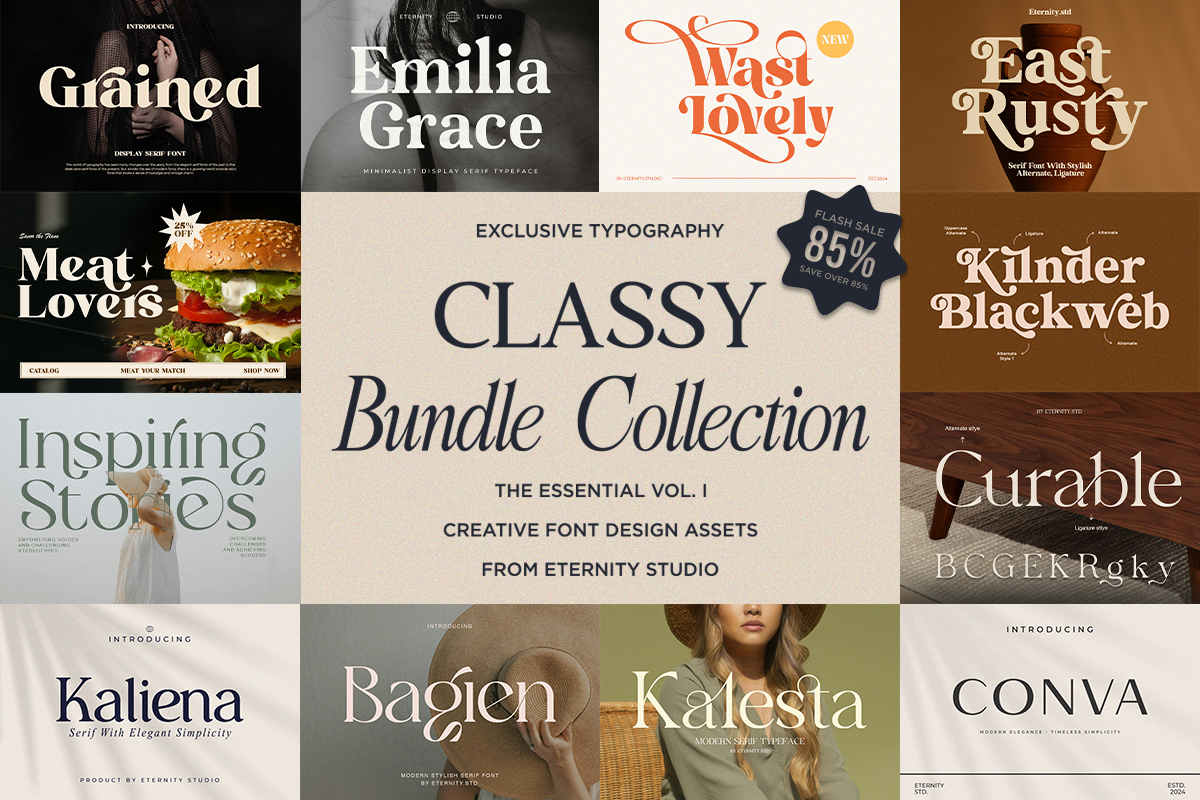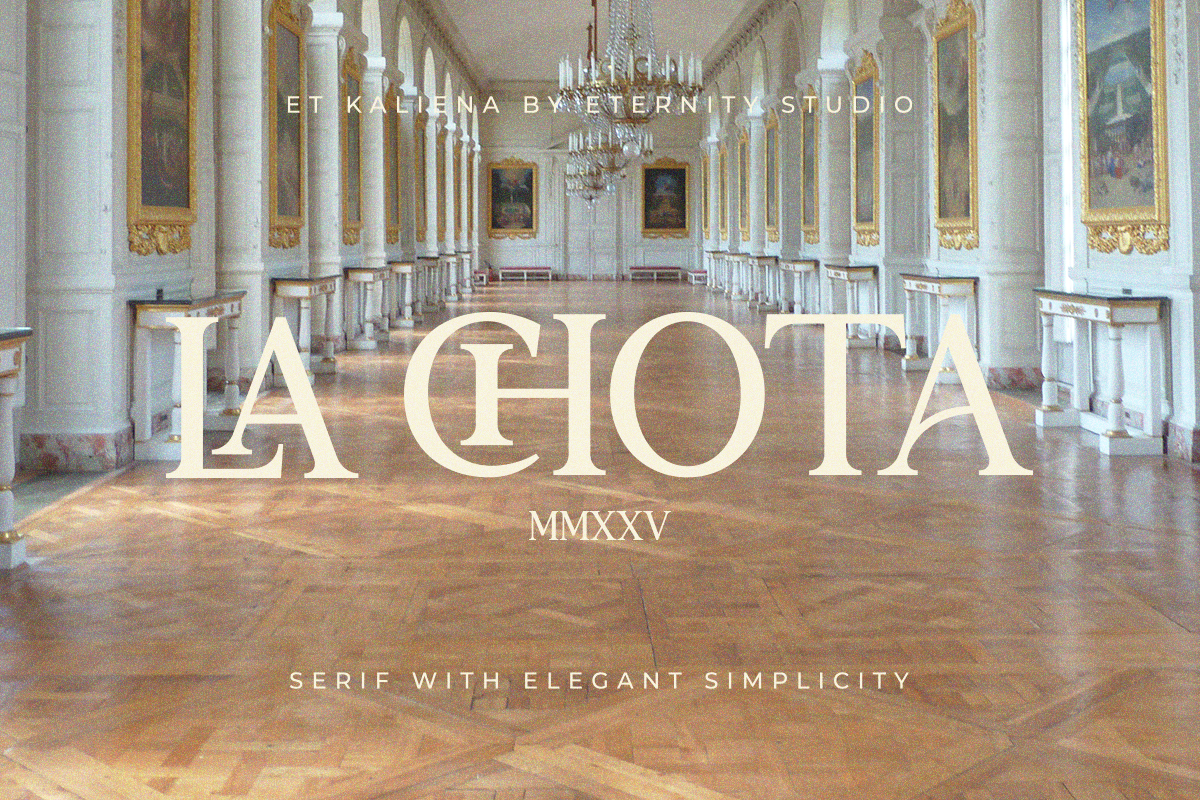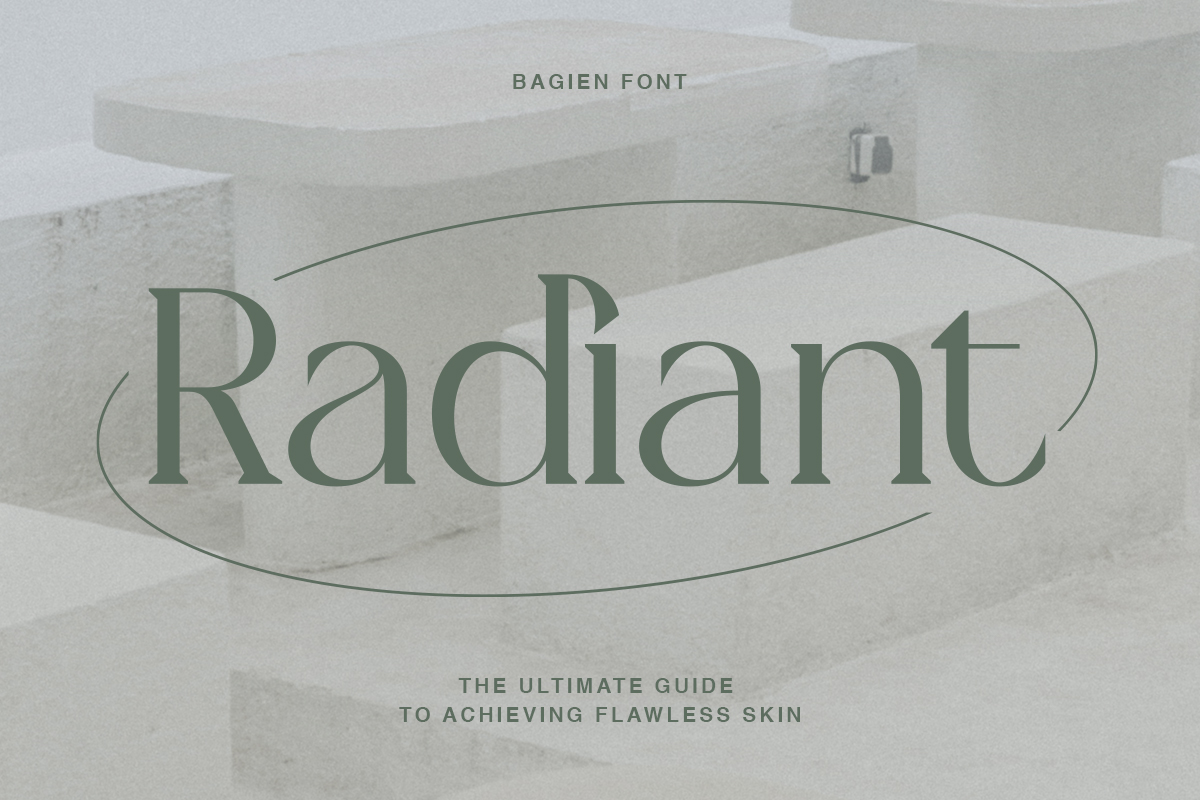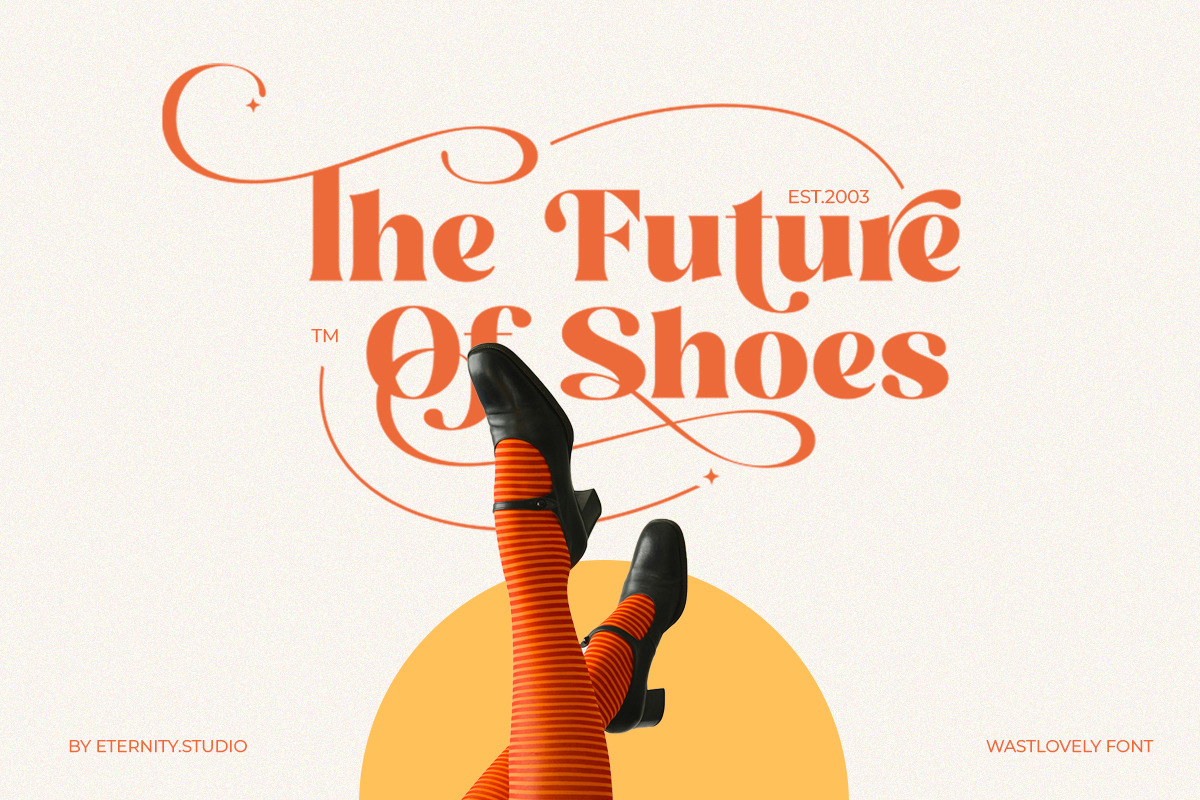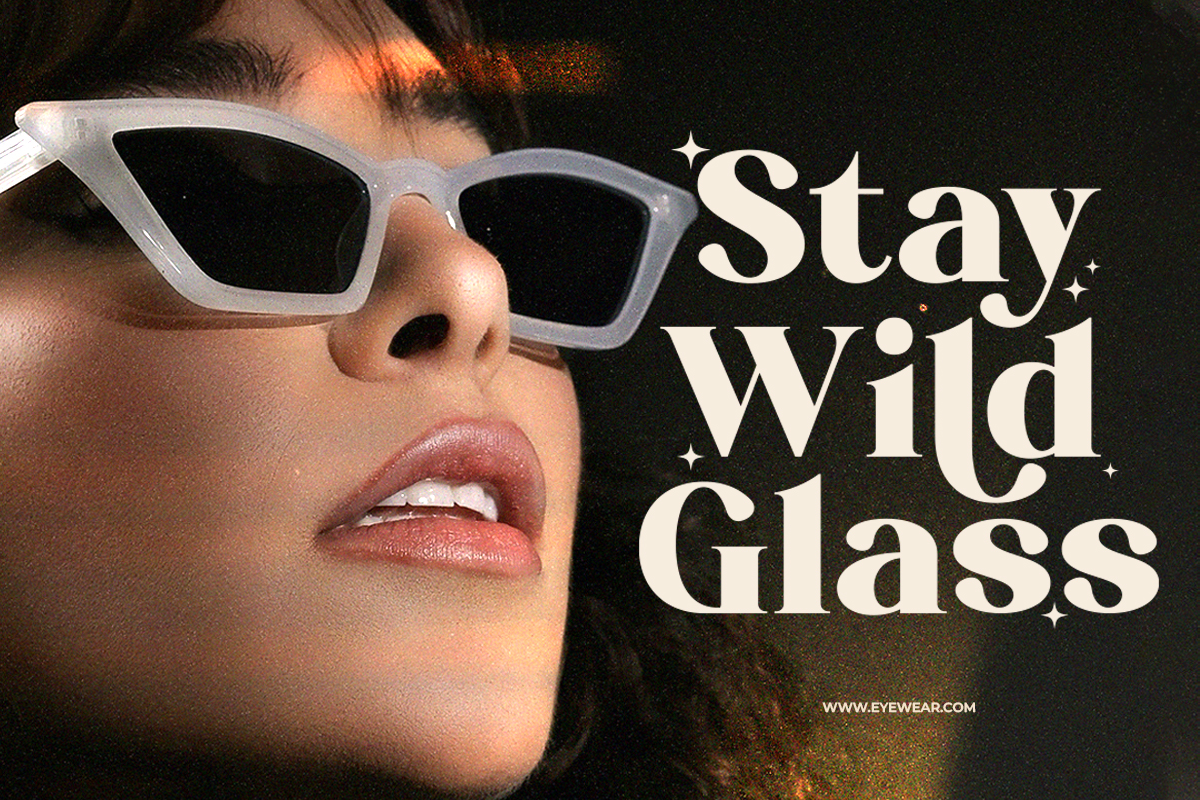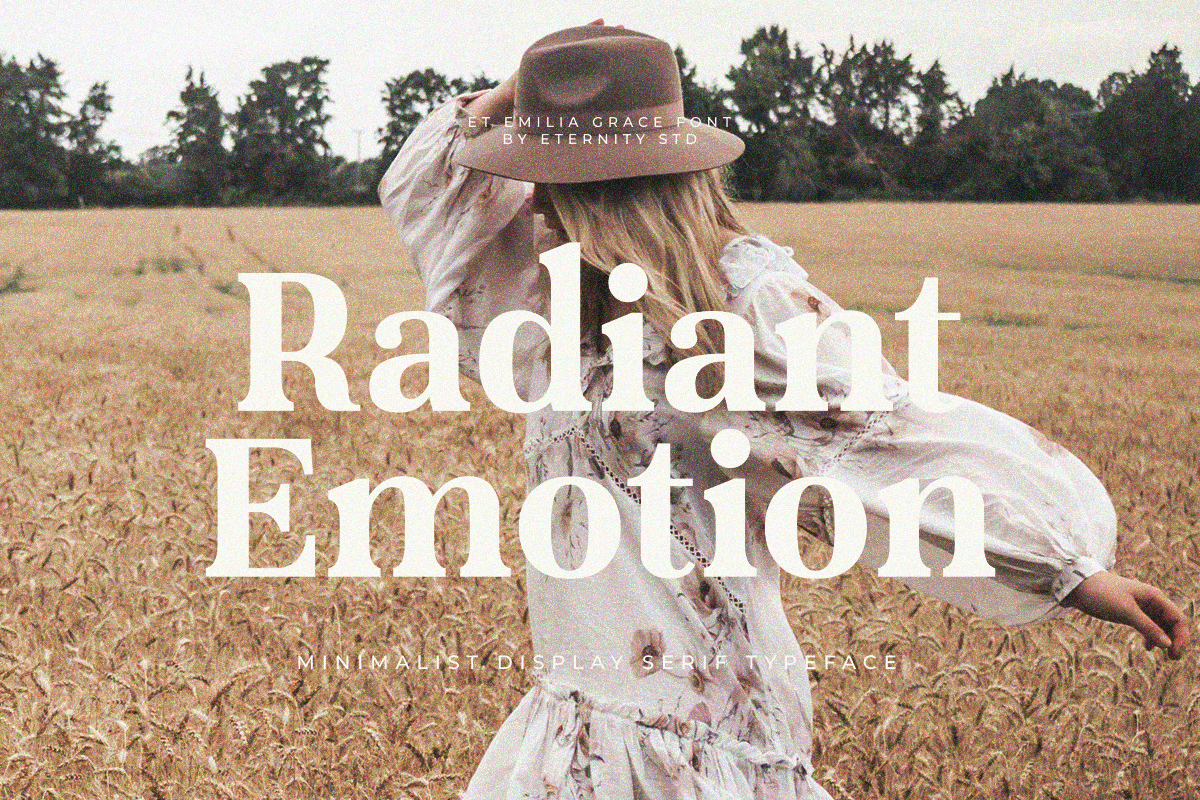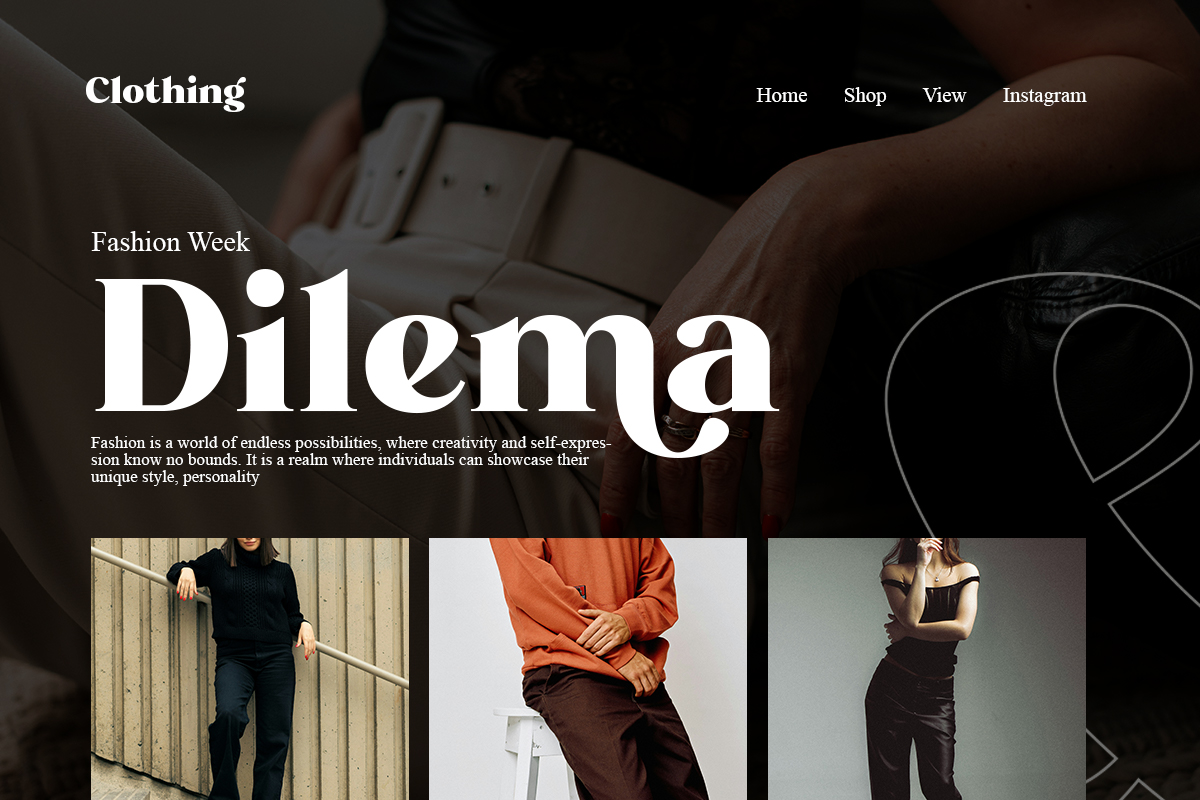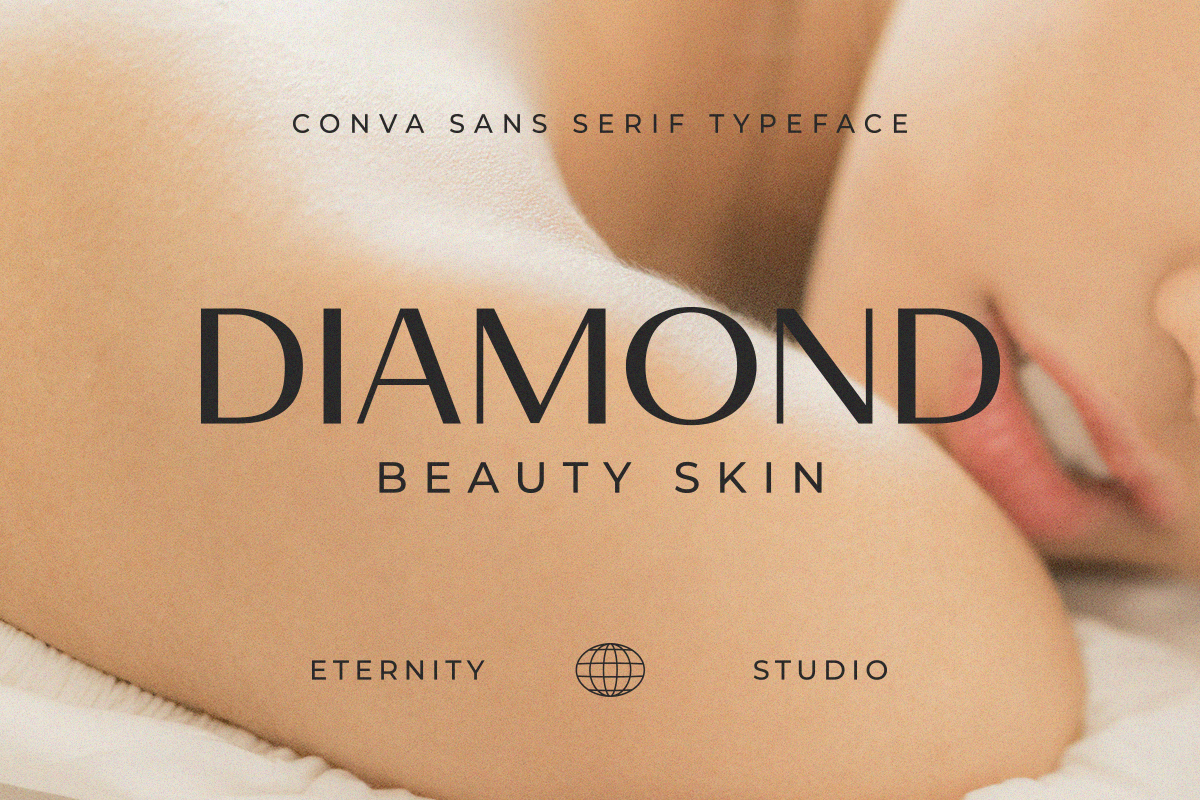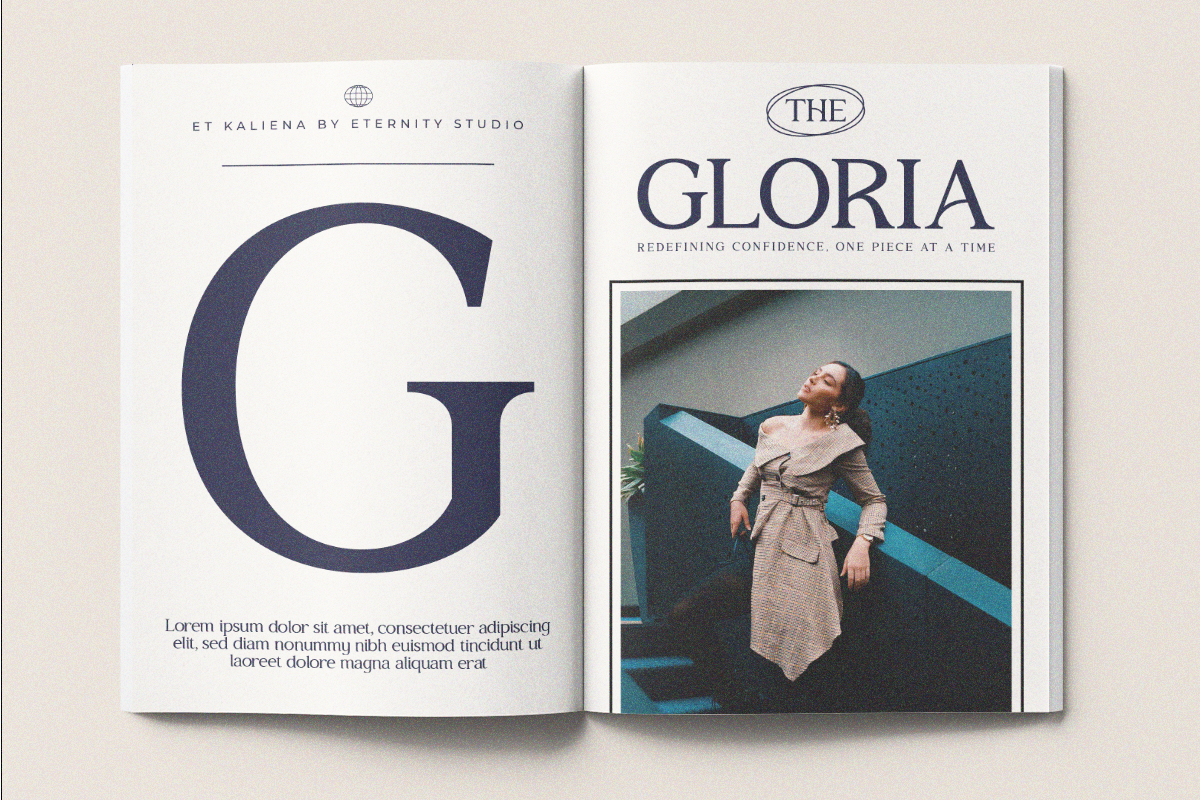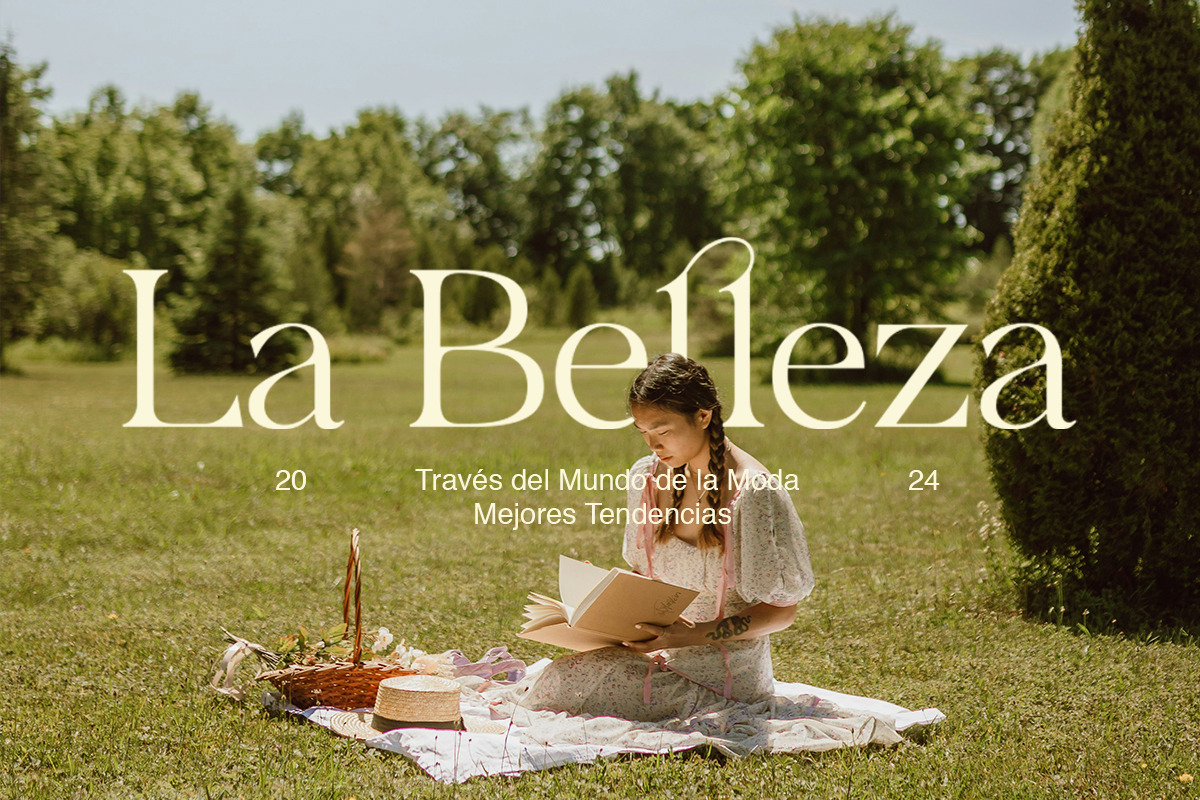
Classy Bundle Vol. I Font
Retro & Classy Font Bundle
This font bundle combines the charm of vintage retro styles with elegant and classy typography. Perfect for branding, logos, posters, packaging, social media, and creative projects. Whether you’re aiming for a nostalgic feel or a refined, luxurious look, this bundle gives you the flexibility to create stunning designs with ease.
Retro display fonts Classy serif & script fonts Elegant and timeless styles
Ideal for designers, creators, and businesses who want both vintage character and classy elegance in one complete package.